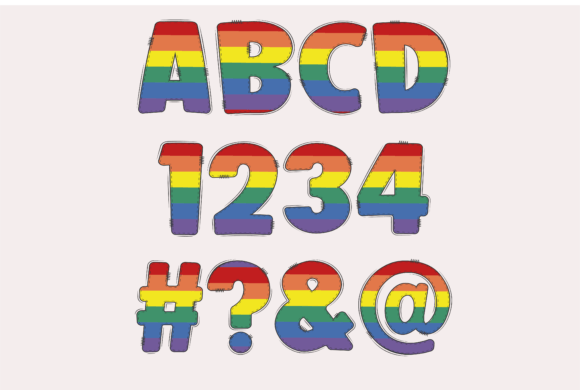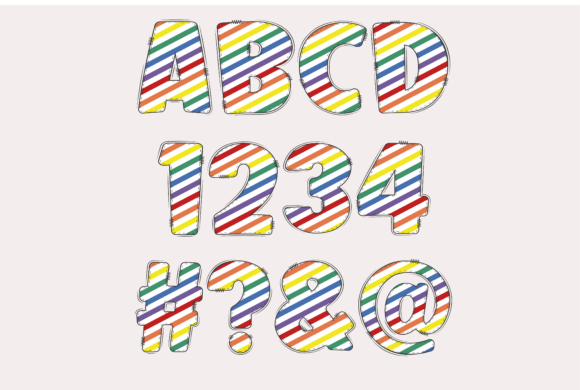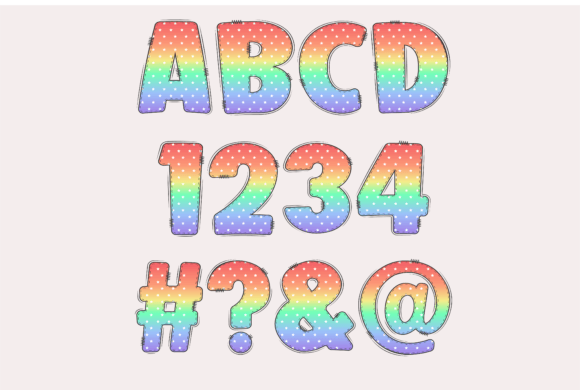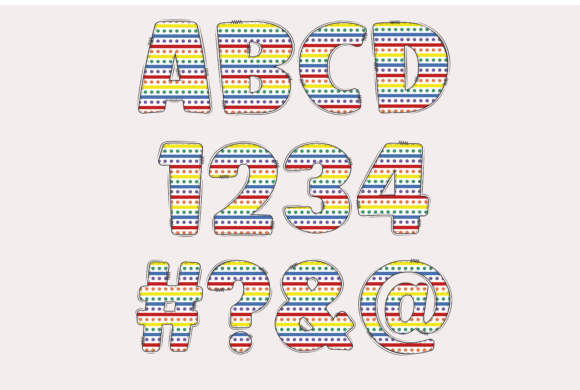
Introduction to Pride Mount Font
Pride Mount is a modern and attractive color font.
Its distinct and well-balanced letters make this font a masterpiece Fall in love with its incredibly versatile style and use it to create spectacular designs.
Key Features of Pride Mount Font